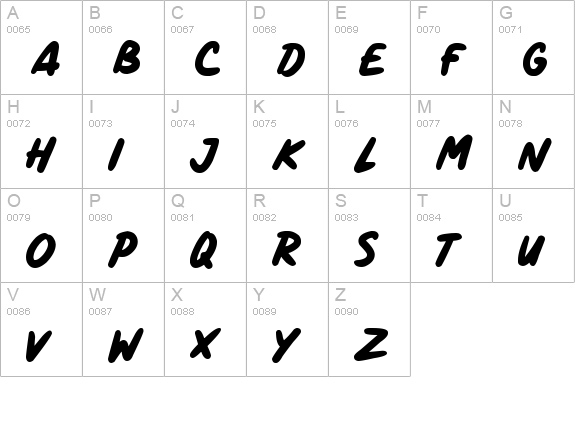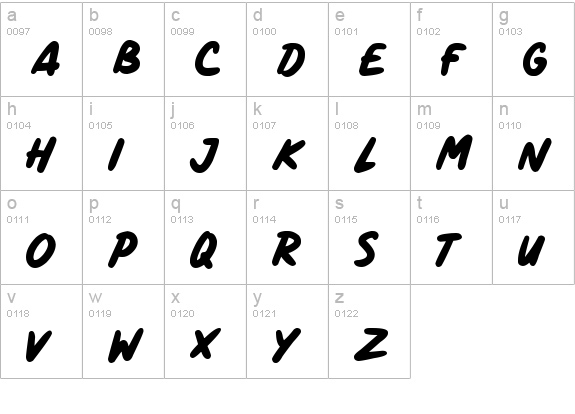
Comic Panels Font Details
Comic Panels is a donationware font in the Fancy > Comic category, designed by Darrell Flood. It has been downloaded 95 times and is available for Windows, Mac and Linux.
Introducing Comic Panels font, a playful and vibrant typeface that is perfect for comic book enthusiasts and graphic designers alike. This font features bold, thick lines and a classic comic book style that will bring your designs to life. Whether you're creating a comic strip, poster, or website, Comic Panels font will add a fun and dynamic touch to your project.